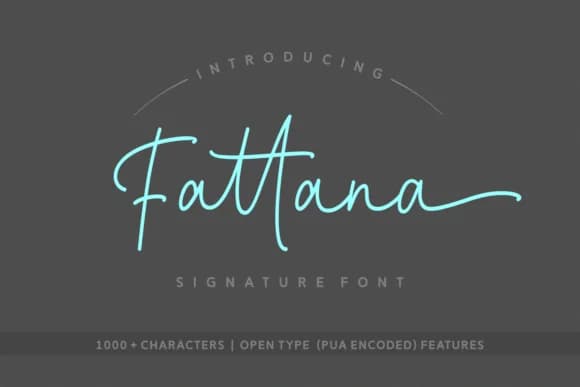
1 / 9About Fattana Font
Fattana by Rifki (7ntypes) is a refined monoline script that brings contemporary elegance to modern design work. With its slender letterforms and signature-style character, this font performs exceptionally well across multiple applications including wedding stationery, luxury brand identity design, and minimalist editorial layouts that demand visual sophistication. The clean, unadorned lines make it particularly suited for high-end packaging design, premium product labels, and boutique brand aesthetics where restraint and refinement communicate both craftsmanship and attention to detail.
Beyond traditional print applications, Fattana shines in social media graphics, greeting card suites, and custom invitation designs where a personal, hand-crafted quality resonates with audiences. The thin weight and monoline construction provide visual consistency across all letterforms while preserving the organic warmth that distinguishes script typefaces from their geometric counterparts. With both regular and Italic variants included, designers gain the flexibility needed to create layered typographic compositions, combine weights strategically for emphasis, or alternate between upright and sloped letterforms for visual interest and dynamic layouts.
- Elegant, Flowing, Fattana
Fattana Font is a script font that shines as a display or heading face. Pair it with a clean sans-serif or serif font for body text β the contrast creates a clear hierarchy while the two styles stay balanced and easy to read.